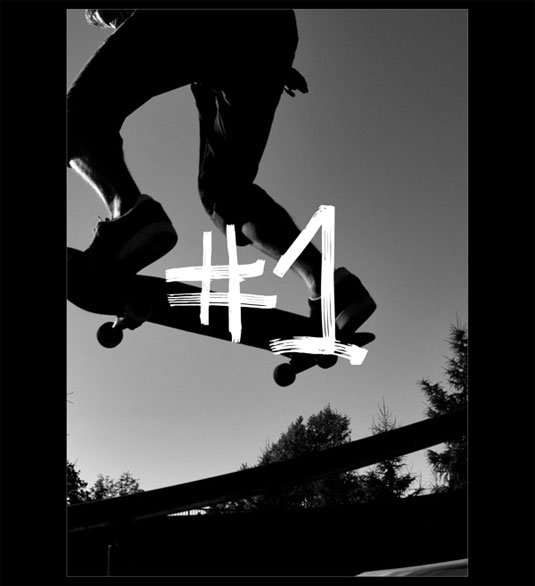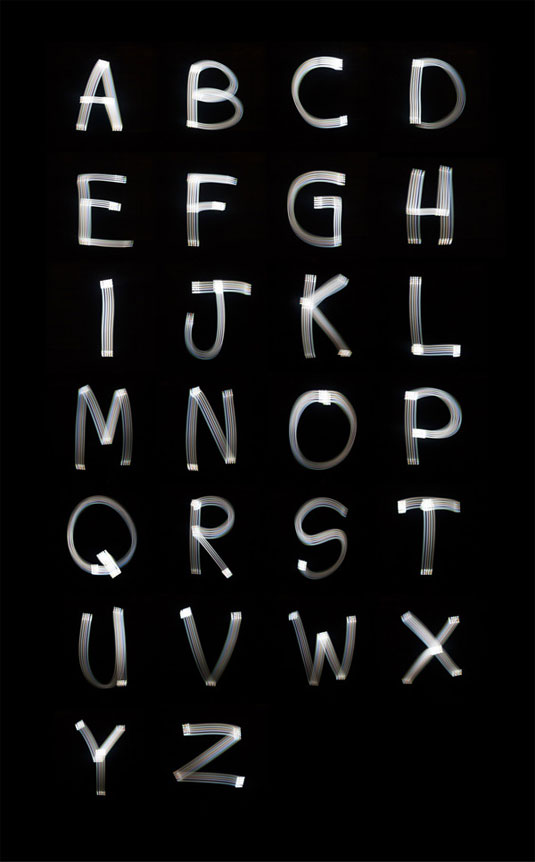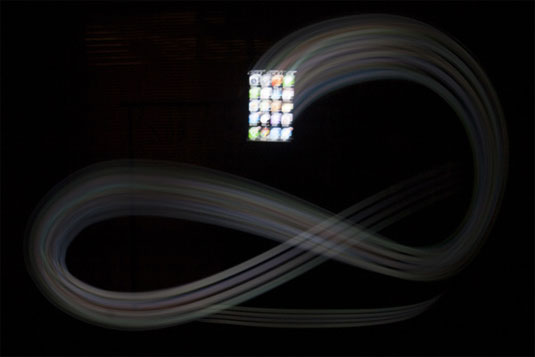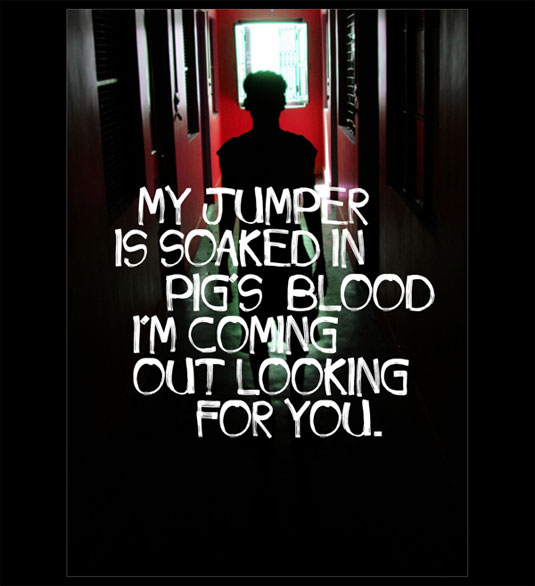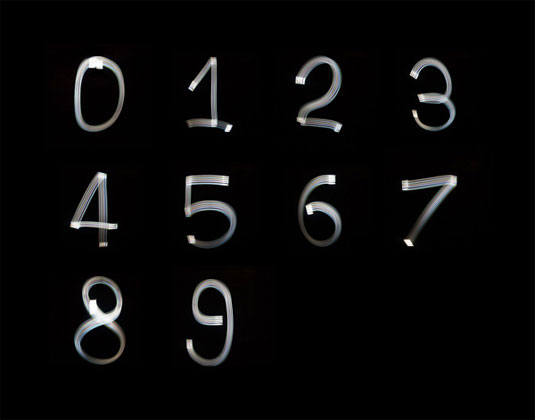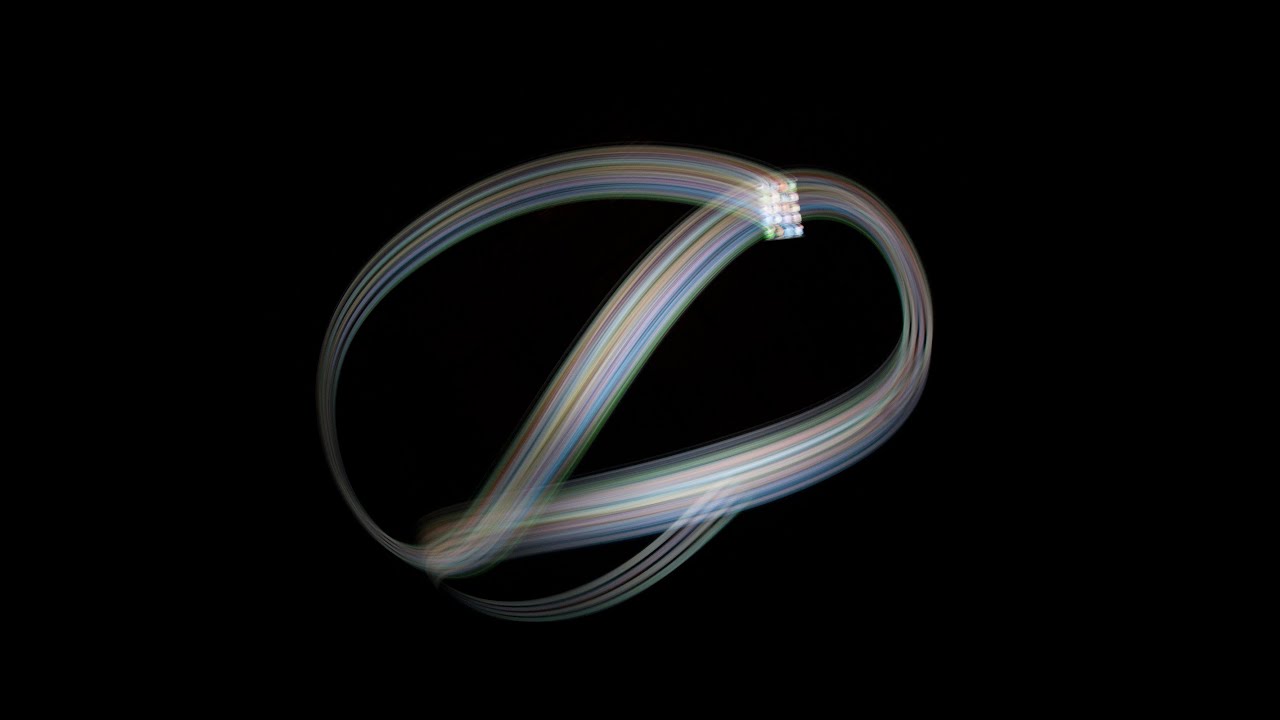
New font created from iPhone light
This font from Australian designer Marcus Byrne was made using the light emitted from an iPhone.
iPhones have become a staple in many a designer's life. Offering some of the best iPhone apps for designers, you can find almost anything when it comes to inspiration, help and advice. Here, Australian designer Marcus Byrne has opted to use the iPhone in an entirely different way.
Using an iPhone and a Canon 5D camera, Byrne sets his camera to a 3.5-second exposure, then uses his iPhone create letters in the air. It's kind of like a more complicated sparkler affair, if you will. Entitled 'Phone Streak', the light trails generated by the app icons form solid characters that make for an intriguing typeface.